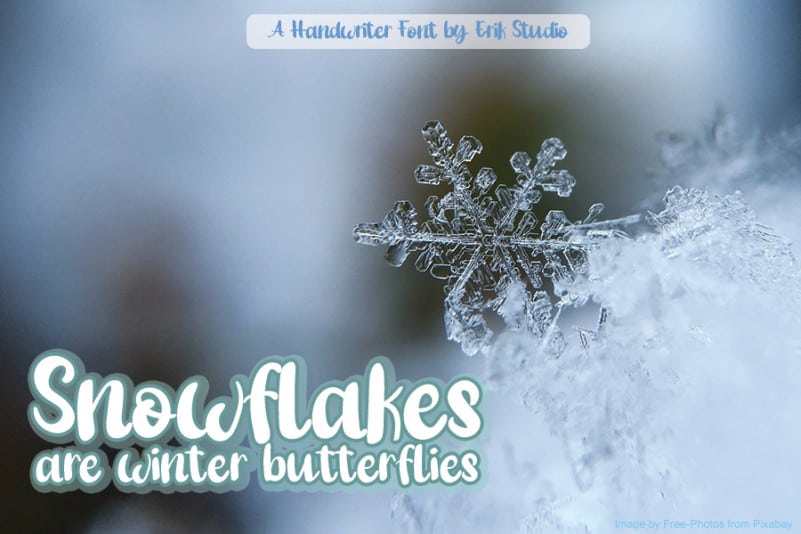
Little Snowman Script Font
Little Snowman Script Font is a fun and playful script font. No matter the topic, this font will be an incredibly asset to your fonts’ library, as it has the potential to elevate any creation.